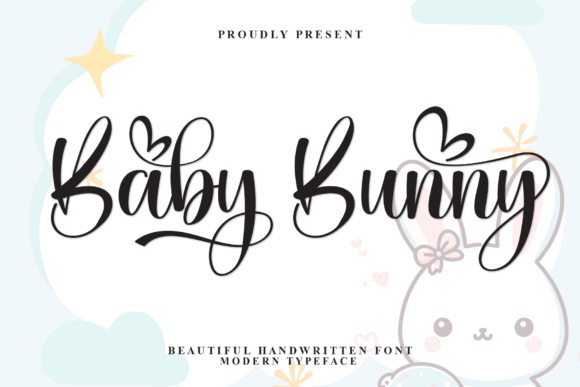
The Joy of Typography: Introducing Baby Bunny Font
Who hasn’t been charmed by a cute baby bunny? The instant smile on our face as we gaze at those adorable little paws and twitching whiskers is a universal experience. For designers, that same sense of joy and whimsy can be captured in the perfect font – the Baby Bunny font.
This charming script is designed to bring a sense of innocence and playfulness to any design project. Its unique heart-shaped dotting and curly flourishes make it an ideal choice for newborn announcements, nursery artwork, and children’s product branding. By incorporating the Baby Bunny font into your designs, you can create a soft, inviting atmosphere that resonates with your target audience. Whether you’re a lifestyle blogger, boutique owner, or simply a designer looking to add some personality to your work, the Baby Bunny font is sure to delight.
Baby Bunny Font Key Features
- Font Family: Baby Bunny Font is a unique, hand-drawn font designed for various digital and print media applications.
- Unique Characteristics: Baby Bunny Font features a playful, whimsical design with rounded edges, making it perfect for children’s books, nursery decor, and other kid-friendly projects.
- Font Weight: The font includes various font weights, from Light to Bold, allowing designers to achieve the desired level of emphasis and visual impact.
Baby Bunny Font Review
Overall, I think the Baby Bunny Font is an adorable addition to any design project, especially those aimed at a younger audience. The font’s playful and whimsical feel ✨ is sure to bring a smile to viewers’ faces. The rounded edges and soft lines give the font a gentle, approachable quality that’s perfect for children’s books, nursery decor, or even branding for family-friendly businesses.
- The font’s consistent design and letter spacing make it easy to read, even at smaller sizes.
- The varied weights and styles ✨ allow for a range of creative applications, from bold headings to delicate body text.
- The font’s rounded edges and soft lines create a soothing, child-friendly aesthetic.
- The font may not be as versatile for more mature or serious design projects ⚠️, where a more professional or formal look is required.
- The font’s playful feel may not translate well to certain design contexts, such as finance or technology.
- The font’s limited language support may be a concern for designers working on international projects.
Overall, the Baby Bunny Font is a delightful addition to any design toolkit. While it may have some limitations, its unique charm and versatility make it a great choice for the right projects.
Practical Application Guide for Baby Bunny Font
Baby Bunny Font is ideal for:
- Infant and toddler product branding
- Whimsical illustrations and graphics
- Playful social media posts and advertisements
Experiment with different font sizes, colors, and combinations to achieve a unique look. Use Baby Bunny Font in combination with other playful fonts to create a visually appealing design. Don’t be afraid to get creative and try new things!
Alternatives to Baby Bunny Font
Great Vibes is a beautiful, handwritten font perfect for creating a whimsical and playful atmosphere. It’s ideal for use in logos, invitations, and other design elements where a touch of personality is needed.
Comparison to Baby Bunny Font: Great Vibes has a more elegant and refined feel, making it suitable for a wider range of designs. It’s a bit more versatile and can be used in both casual and formal contexts.
What font sizes and styles are available in the Baby Bunny Font?
The Baby Bunny Font includes a range of font sizes and styles, including regular, bold, italic, and bold italic. The font is designed to be highly legible and versatile, making it suitable for a variety of applications, from body text to display headings. You can experiment with different font sizes and styles to achieve the desired look and feel for your design project.